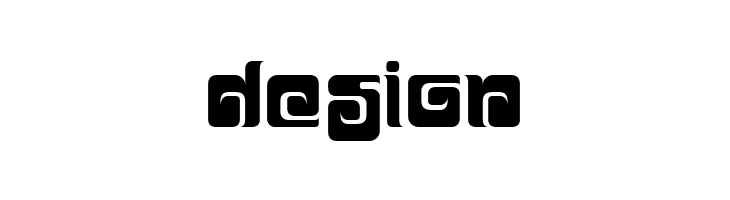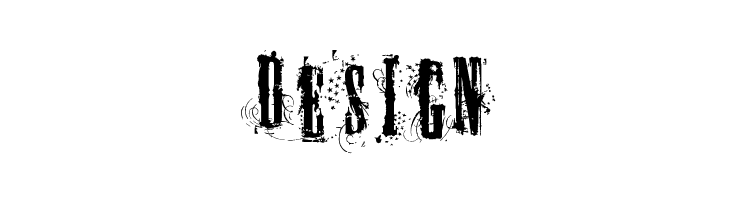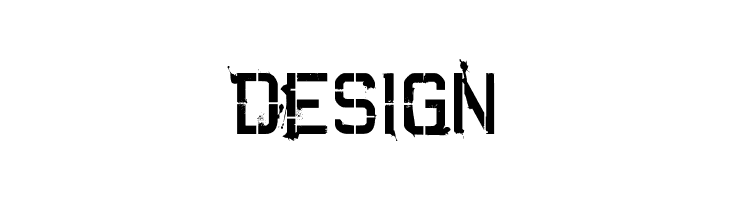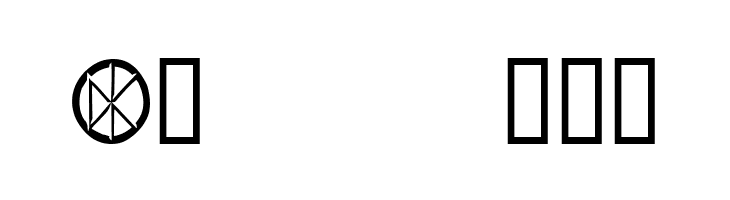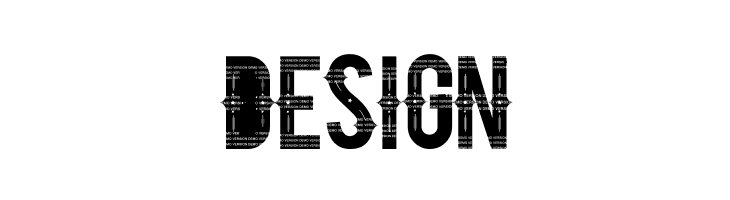
CARTAZ Font
Font by Fabrika De Typos - Marcio Hirosse - fabrikadetypos.blogspot.com
A bold, distressed stencil font with a rugged, industrial look.
Crash Font
Font by Fabrika De Typos - Marcio Hirosse - fabrikadetypos.blogspot.com
A bold, italicized font with strong, angular lines and high contrast.
CLUB Font
Font by Fabrika De Typos - Marcio Hirosse - fabrikadetypos.blogspot.com
A bold, geometric font with a modular and modern design.
Thailandesa Font
Font by Fabrika De Typos - Marcio Hirosse - fabrikadetypos.blogspot.com
A bold, geometric font with a vintage yet modern appeal.
MACABRA Font
Font by Fabrika De Typos - Marcio Hirosse - fabrikadetypos.blogspot.com
An ornate and decorative font with elaborate swirls and flourishes.
FUCK YOU LAS VEGAS Font
Font by Fabrika De Typos - Marcio Hirosse - fabrikadetypos.blogspot.com
A bold, decorative font with ornate, gothic embellishments.
PIG Font
Font by Fabrika De Typos - Marcio Hirosse - fabrikadetypos.blogspot.com
A bold, distressed font with a hand-painted, rugged appearance.
FDT_CARRETO_DEMO_VERSION Font
A bold, decorative font with intricate patterns and a vintage flair.
BALLOM Font
Font by Fabrika De Typos - Marcio Hirosse - fabrikadetypos.blogspot.com
ABUSO Font
Font by Fabrika De Typos - Marcio Hirosse - fabrikadetypos.blogspot.com
A bold, grungy font with a distressed, brush-painted appearance.
Error Font
Font by Fabrika De Typos - Marcio Hirosse - fabrikadetypos.blogspot.com
A bold, modern font with dynamic stroke variations and rounded edges.
Ferrugem Font
Font by Fabrika De Typos - Marcio Hirosse - fabrikadetypos.blogspot.com
A bold, textured font with a playful, vintage feel.
Saco de Pão Font
Font by Fabrika De Typos - Marcio Hirosse - fabrikadetypos.blogspot.com
A bold, hand-drawn font with a playful, artistic style.
Swis AntiNormal Condensed Normal Font
Font by Fabrika De Typos - Marcio Hirosse - fabrikadetypos.blogspot.com
A bold, condensed, and slanted font with tight spacing and a dynamic style.